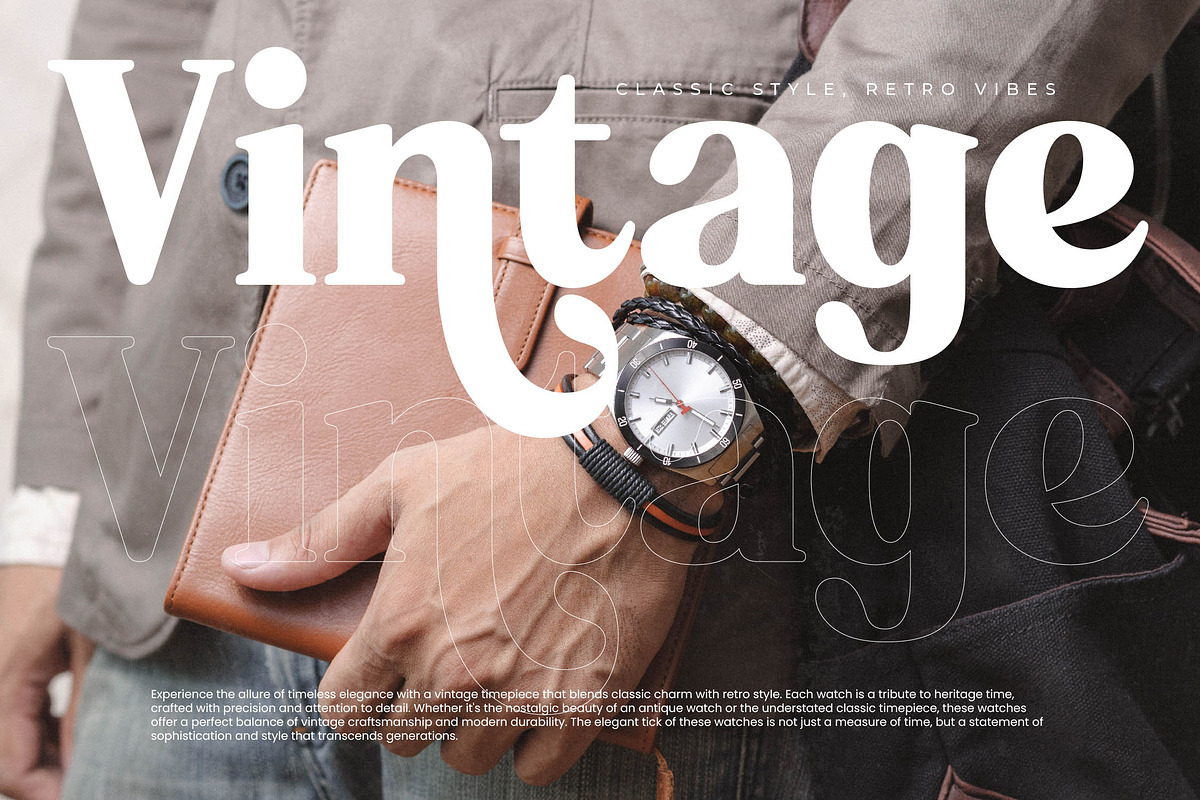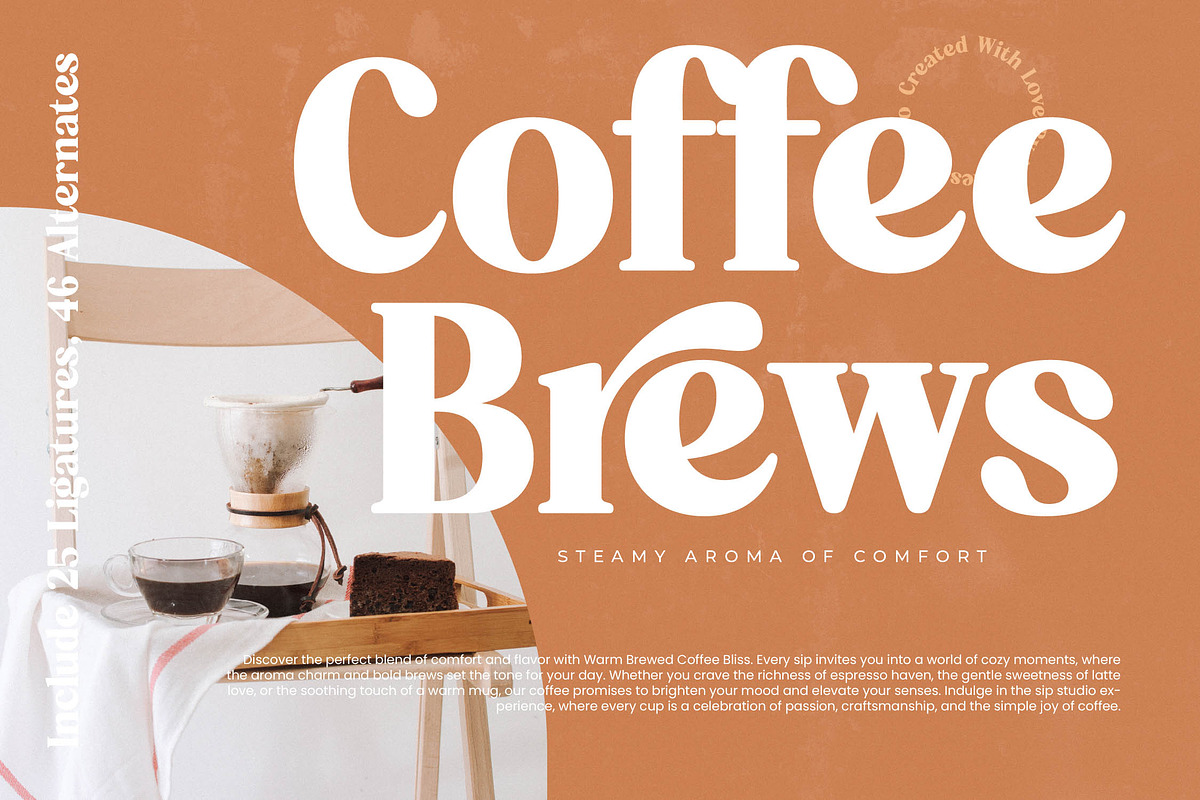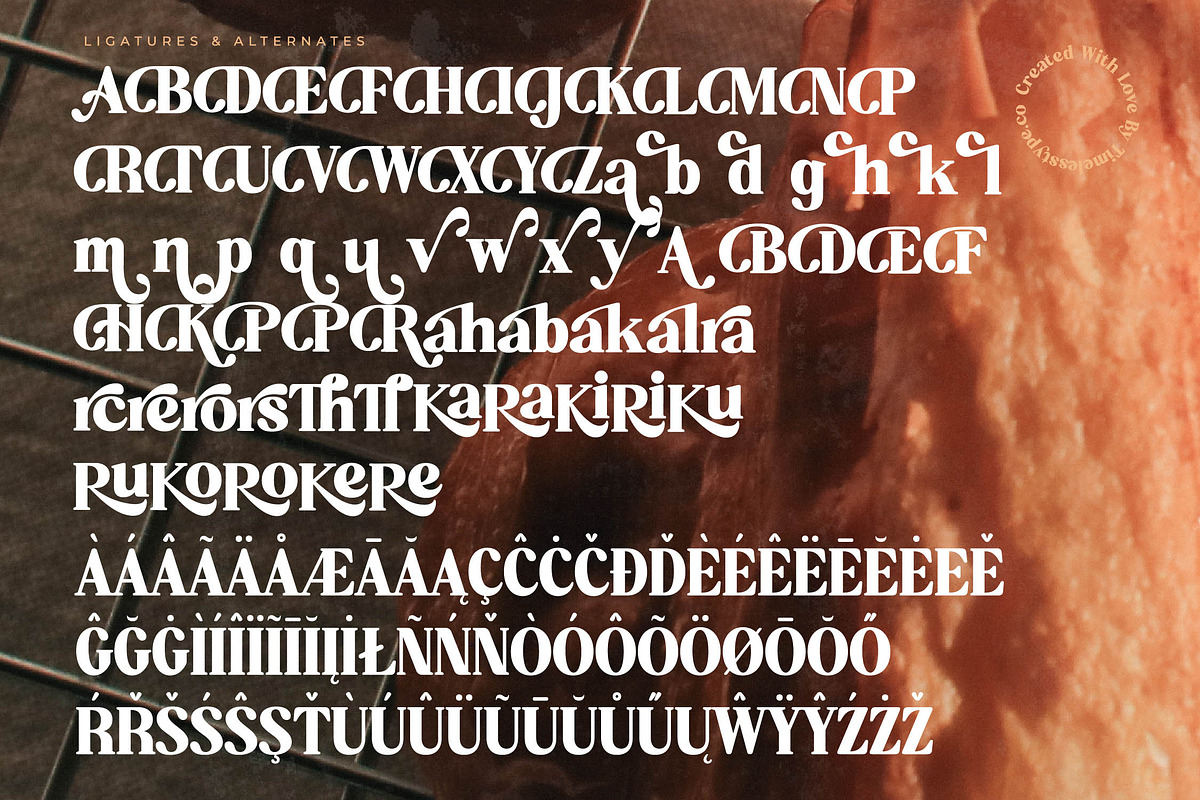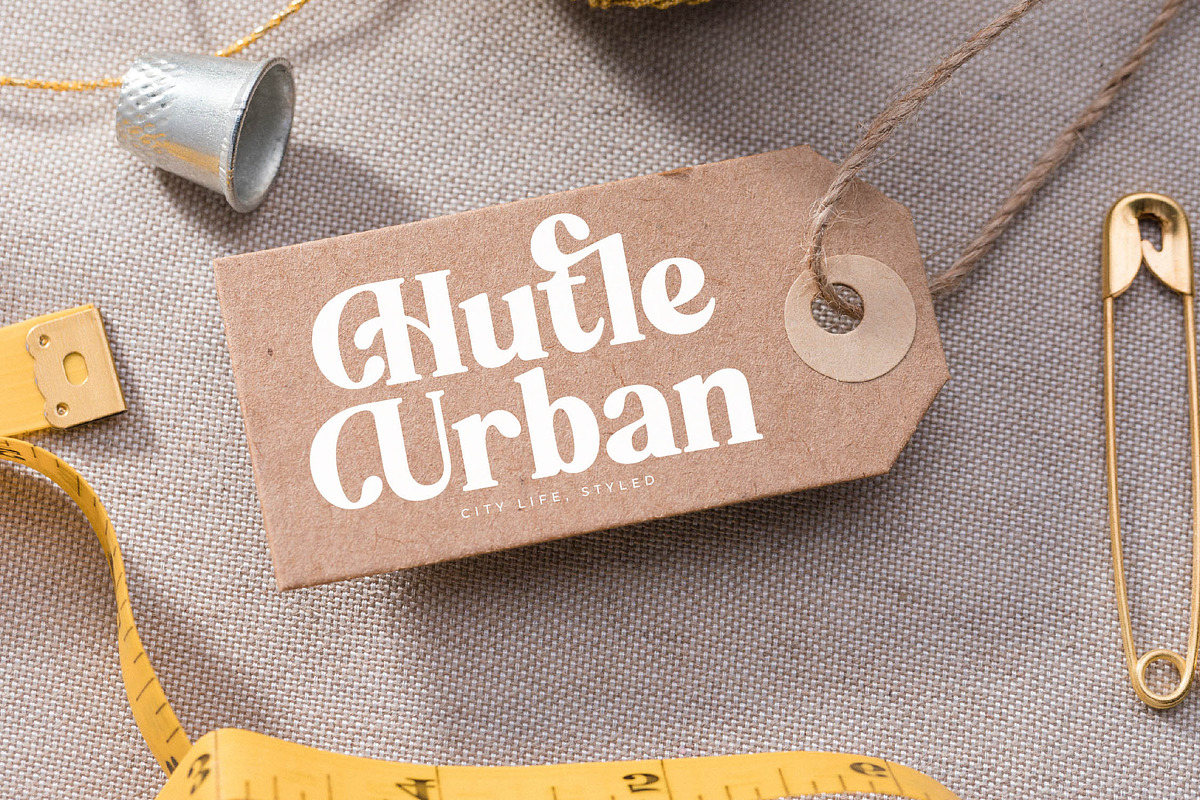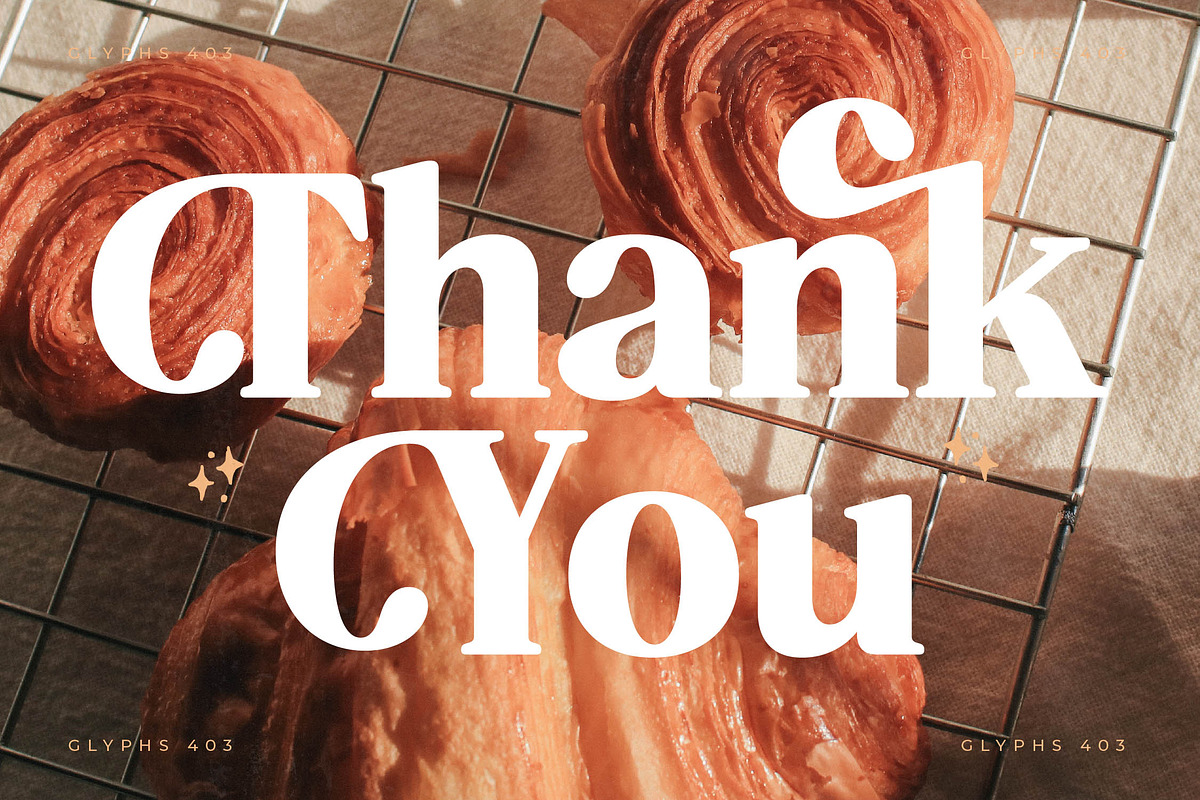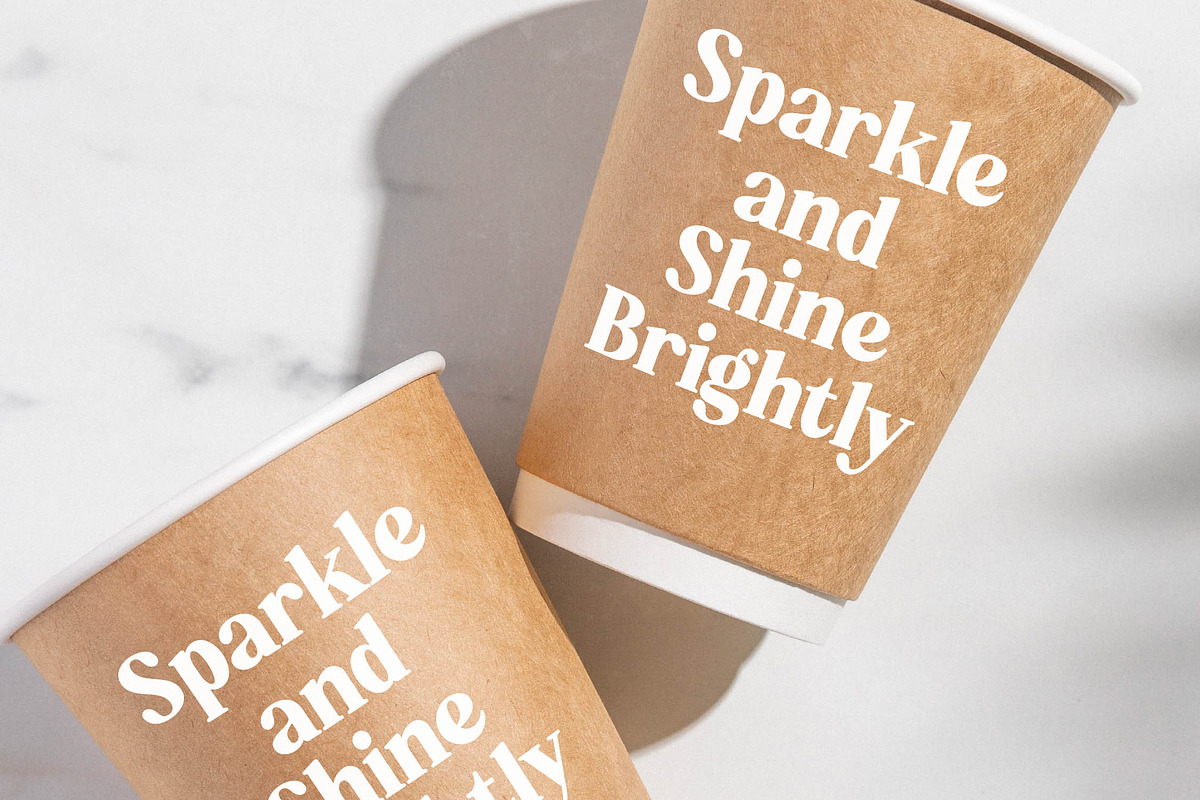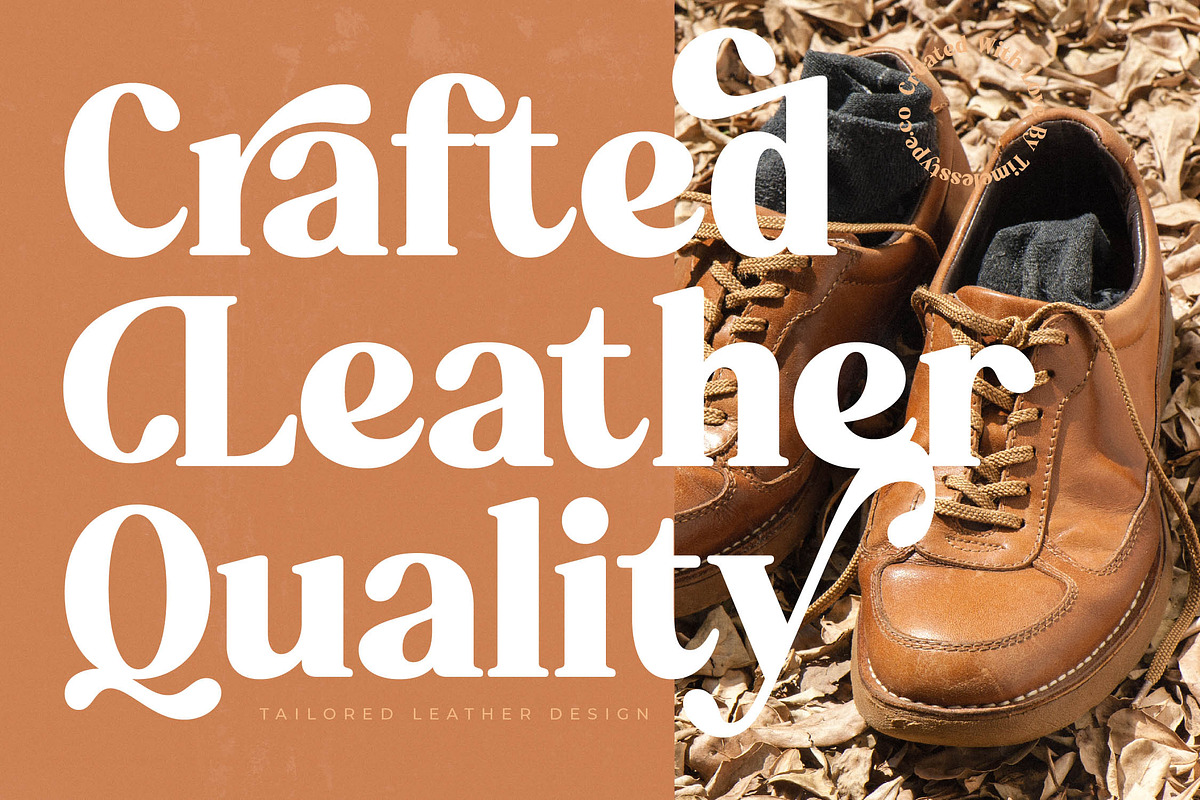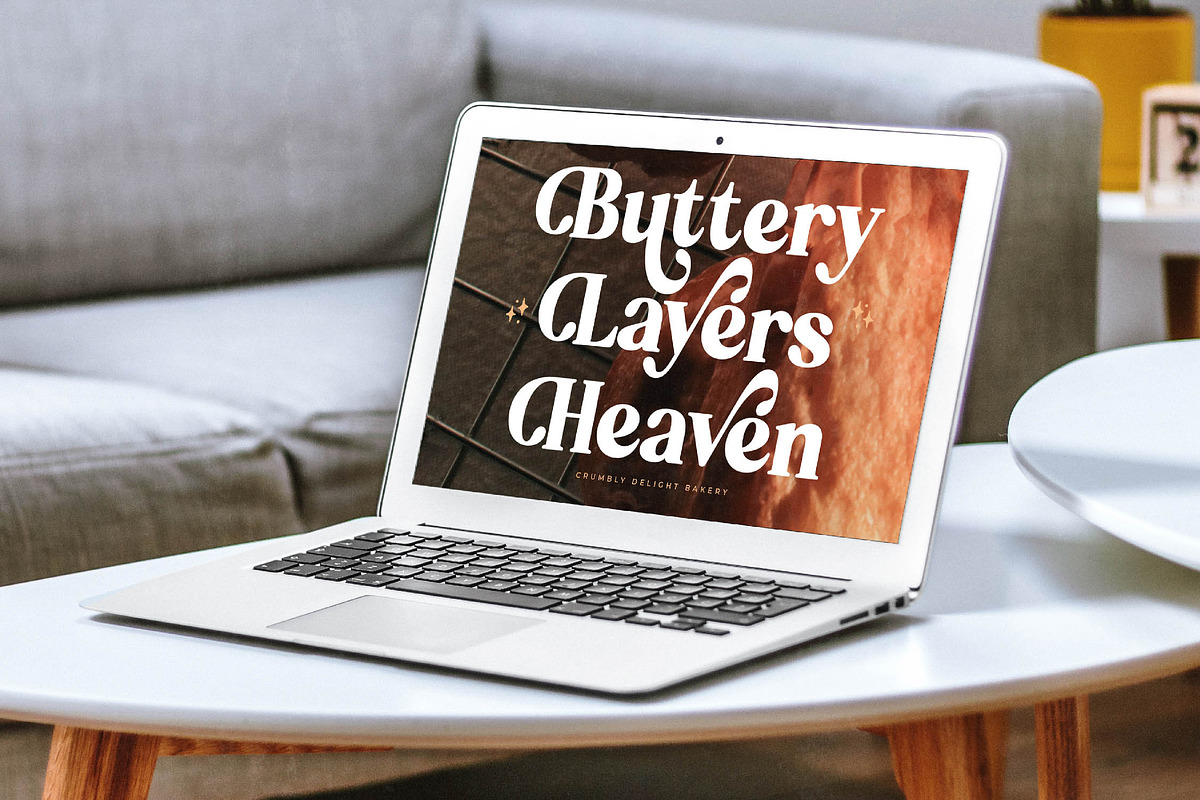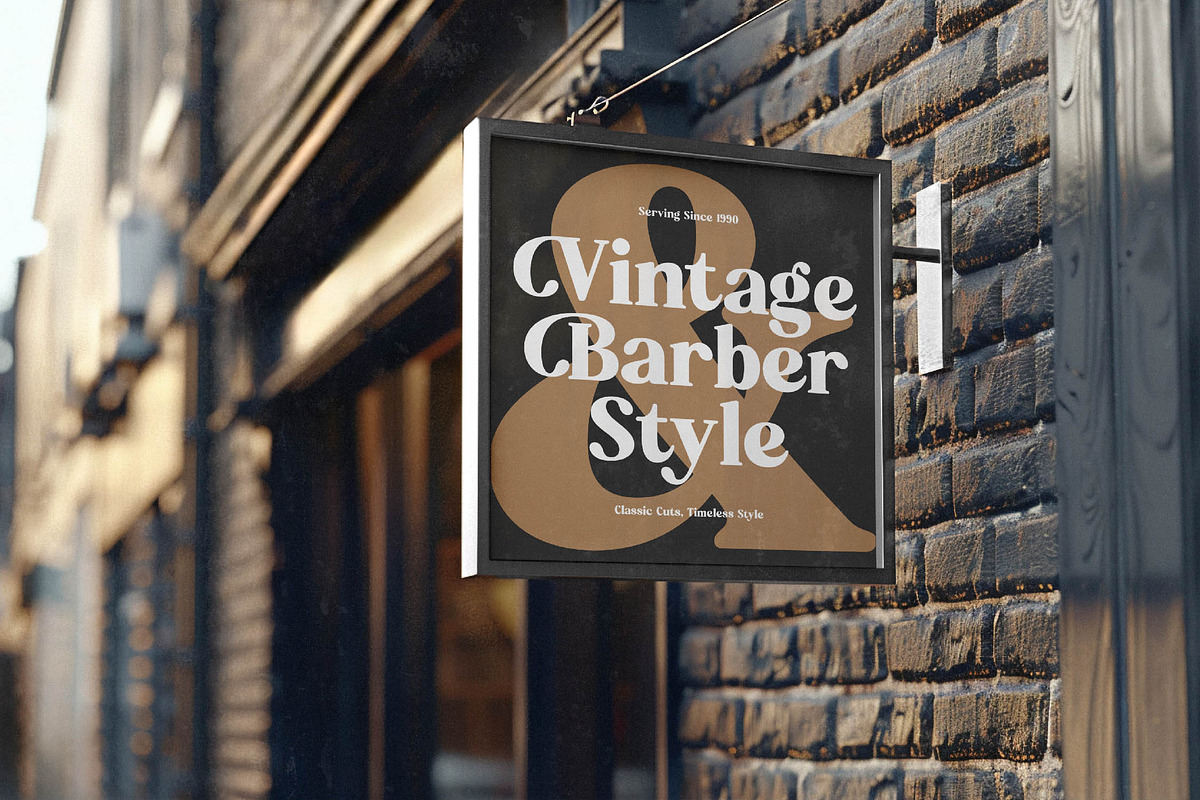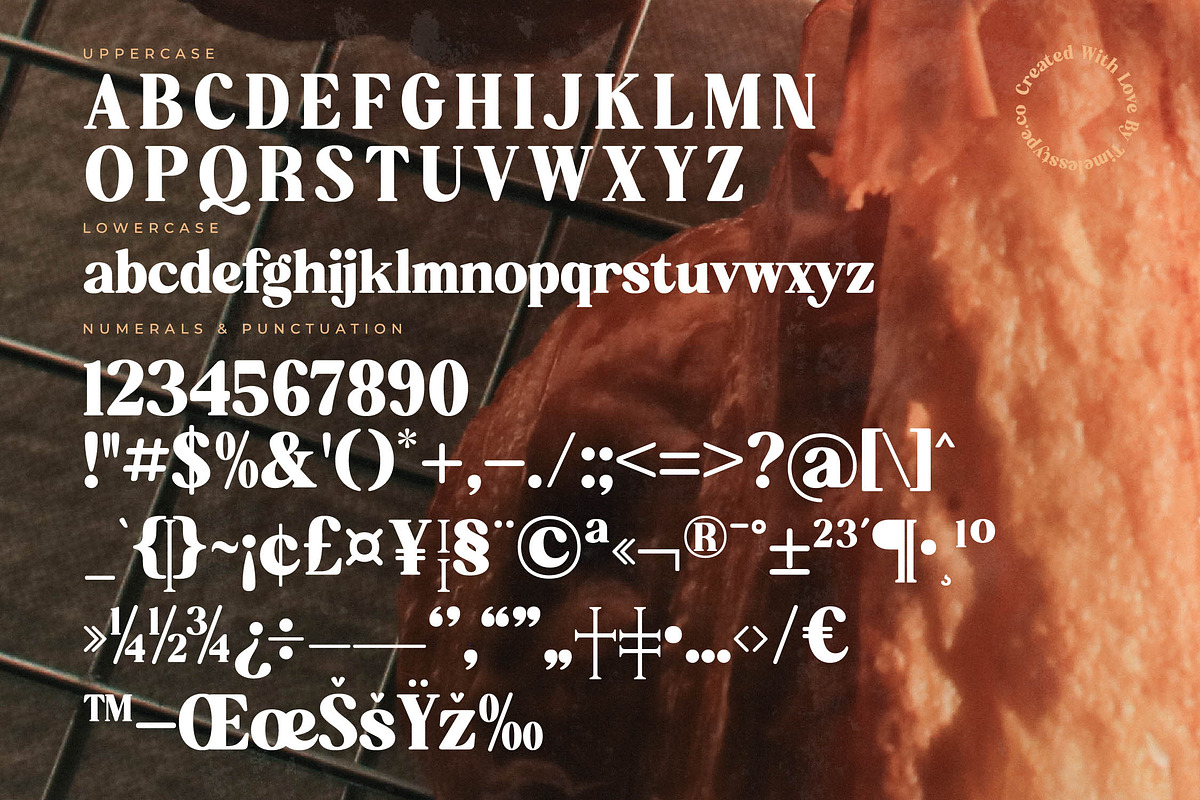
Aroma Baked Modern Serif Display
Aroma Baked is a sensory-rich typeface that brings the warmth of a morning bakery to life through elegant, fluid curves. It captures a nostalgic yet fresh aesthetic that feels as comforting as a golden, fresh-baked croissant.
Inspired by the artisanal craftsmanship of traditional boulangeries and the organic textures of slow living, this font creates an atmosphere of cozy sophistication. The design blends the precision of modern geometry with the soft, flowing movements of hand-finished lettering.
This modern serif display balances bold presence with delicate details, offering a luxury typography experience for discerning designers. Its high-contrast serif strokes provide a sharp, editorial font look that ensures maximum branding impact in any high-end layout.
Staying ahead of the modern serif trend, this typeface fulfills the growing demand for editorial display fonts that feel human, warm, and expressive. It is the perfect choice for projects requiring character-driven typography that breaks away from sterile, minimalist trends.
Ideally suited for high-end logo design and comprehensive branding systems that need a touch of personality. Its versatility shines in artisanal packaging, upscale editorial spreads, romantic wedding stationery, and avant-garde fashion lookbooks.
The font package includes a rich library of 25 ligatures and 46 alternates with decorative swashes to customize every unique word. Full multilingual support and a wide range of international characters ensure your message resonates across global markets.
- Ligature 25 Alternate 46